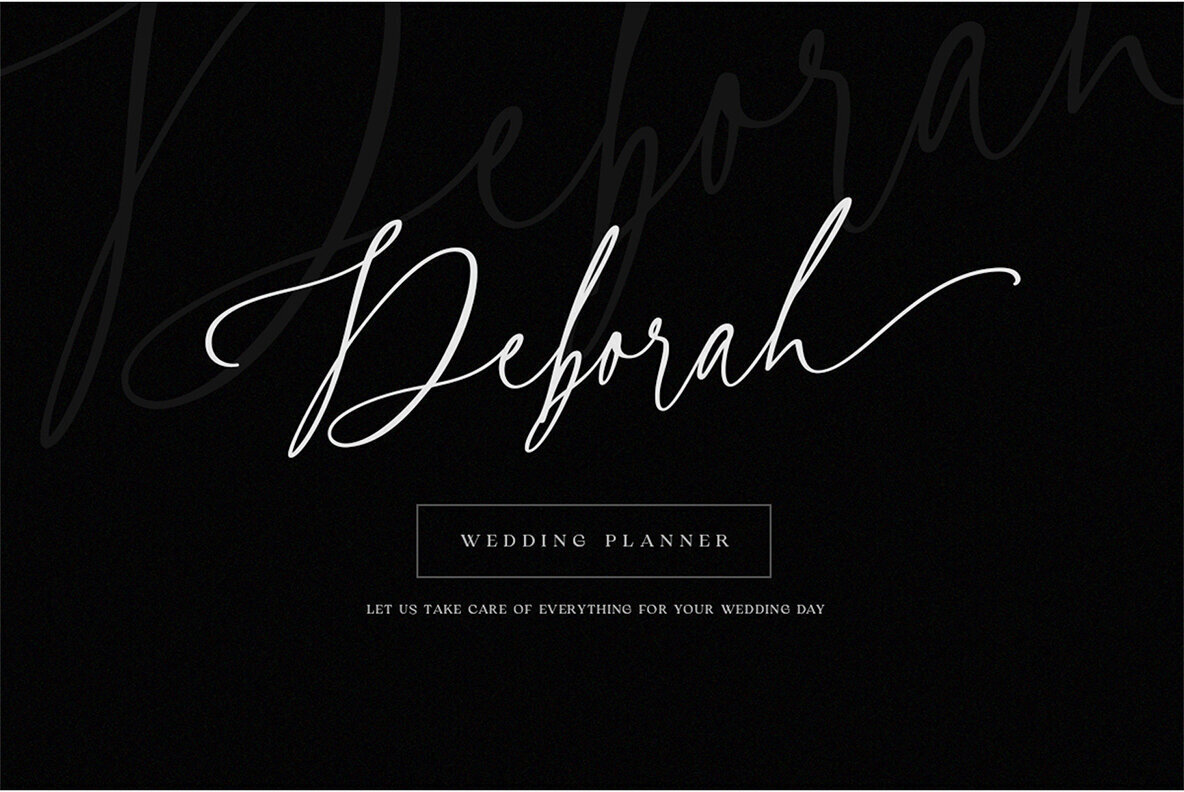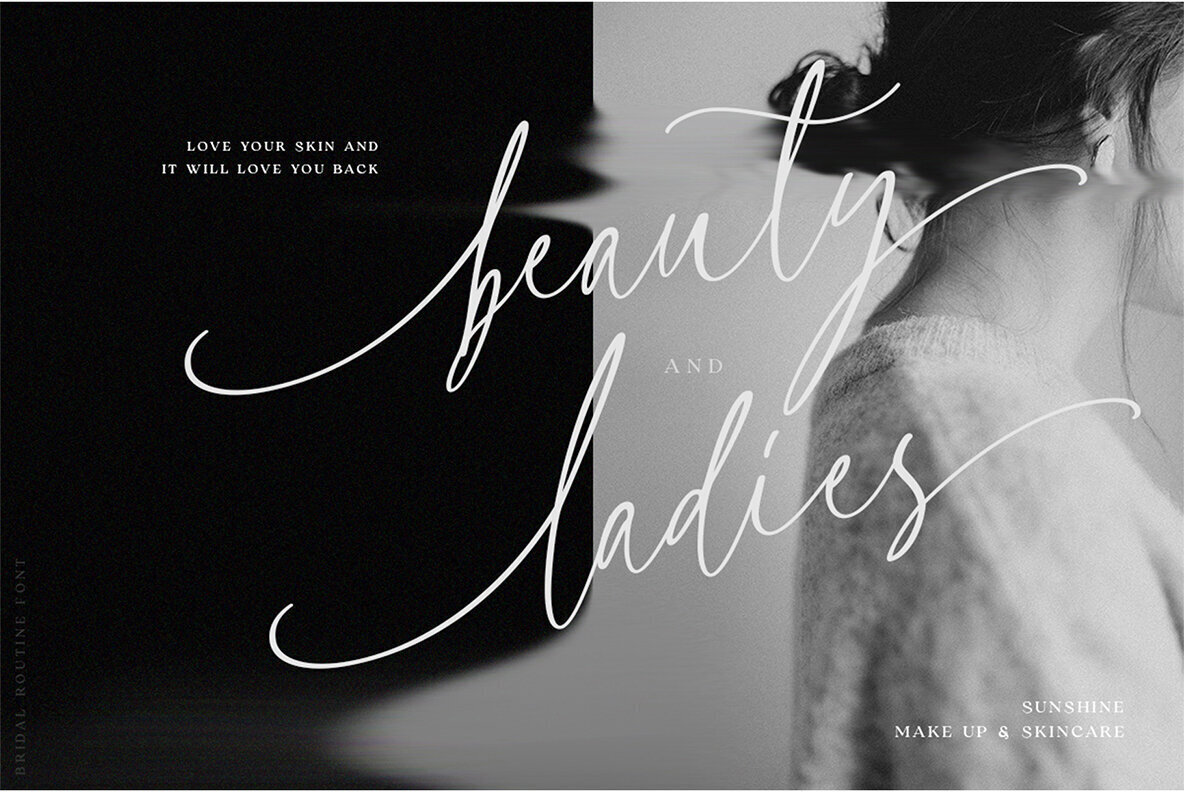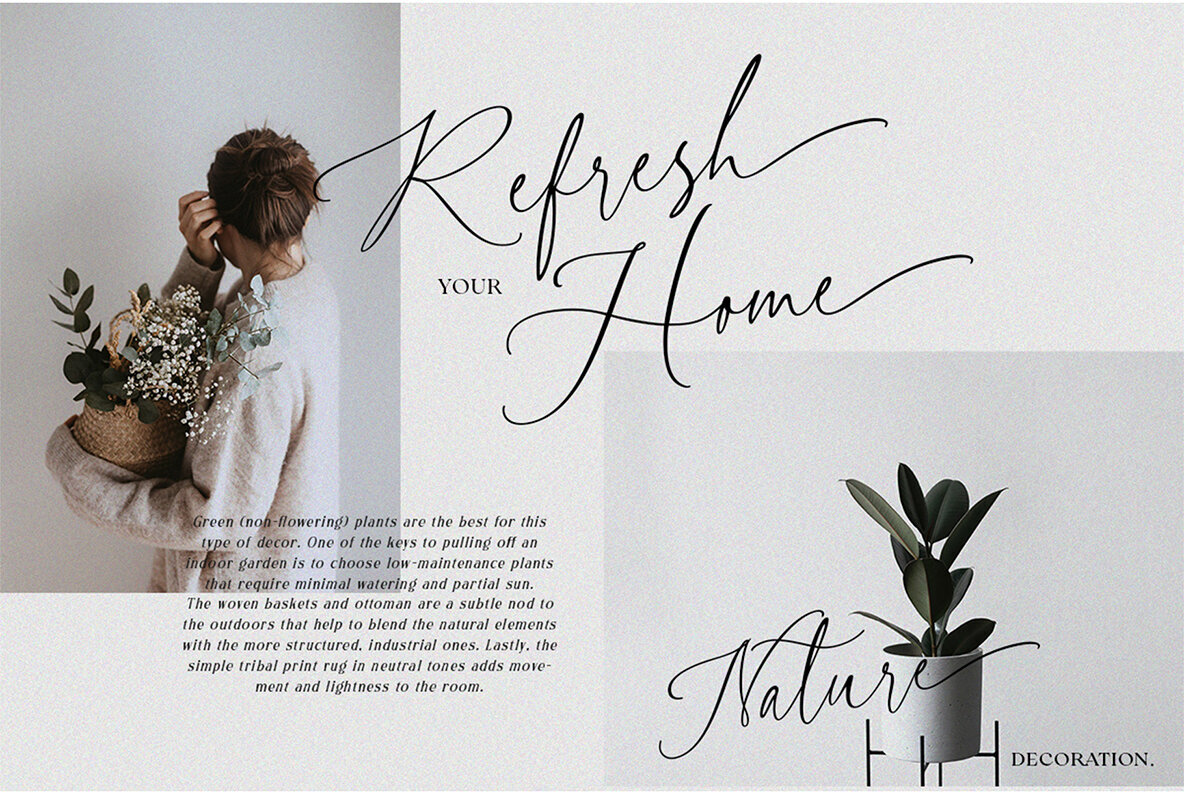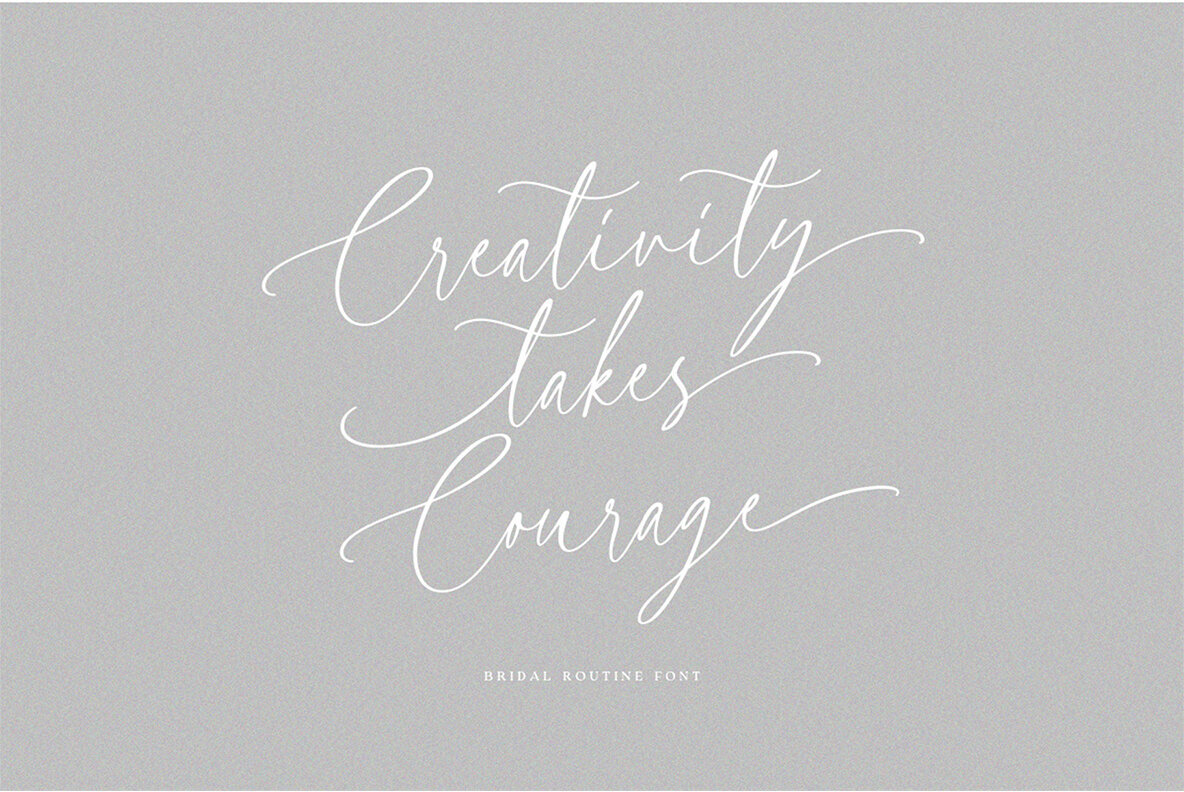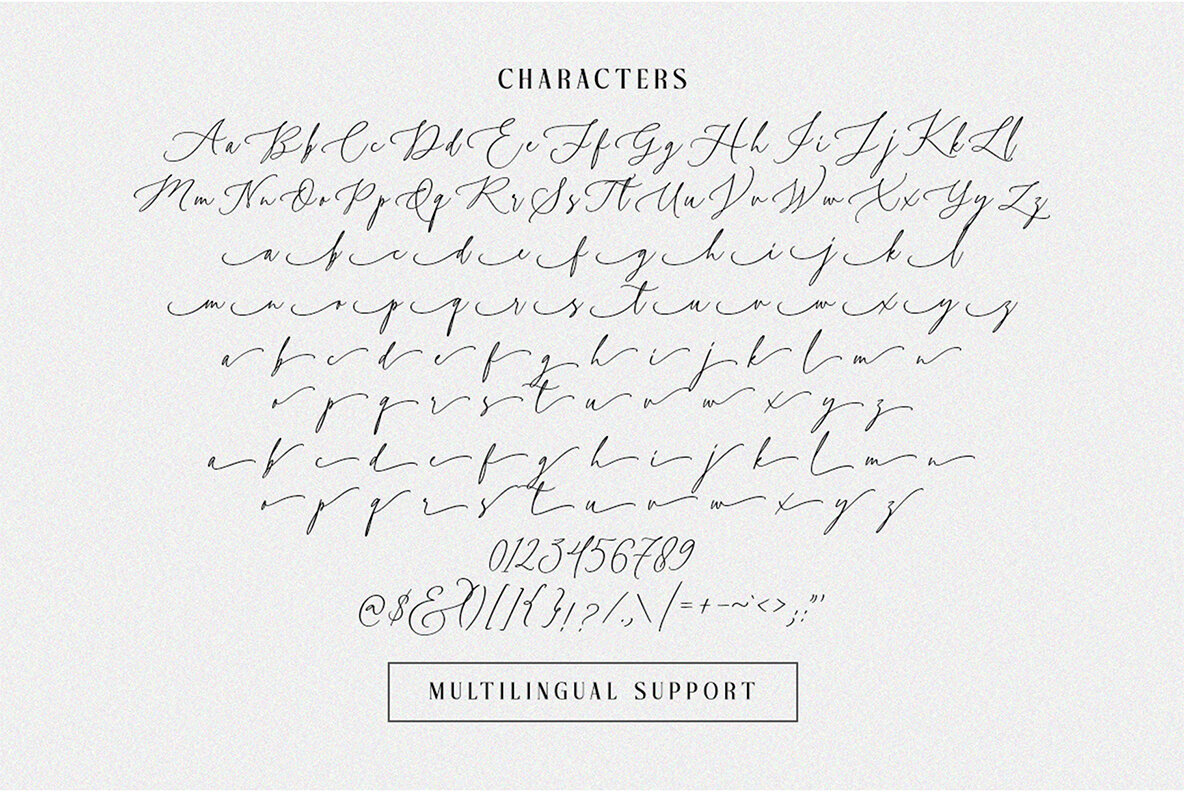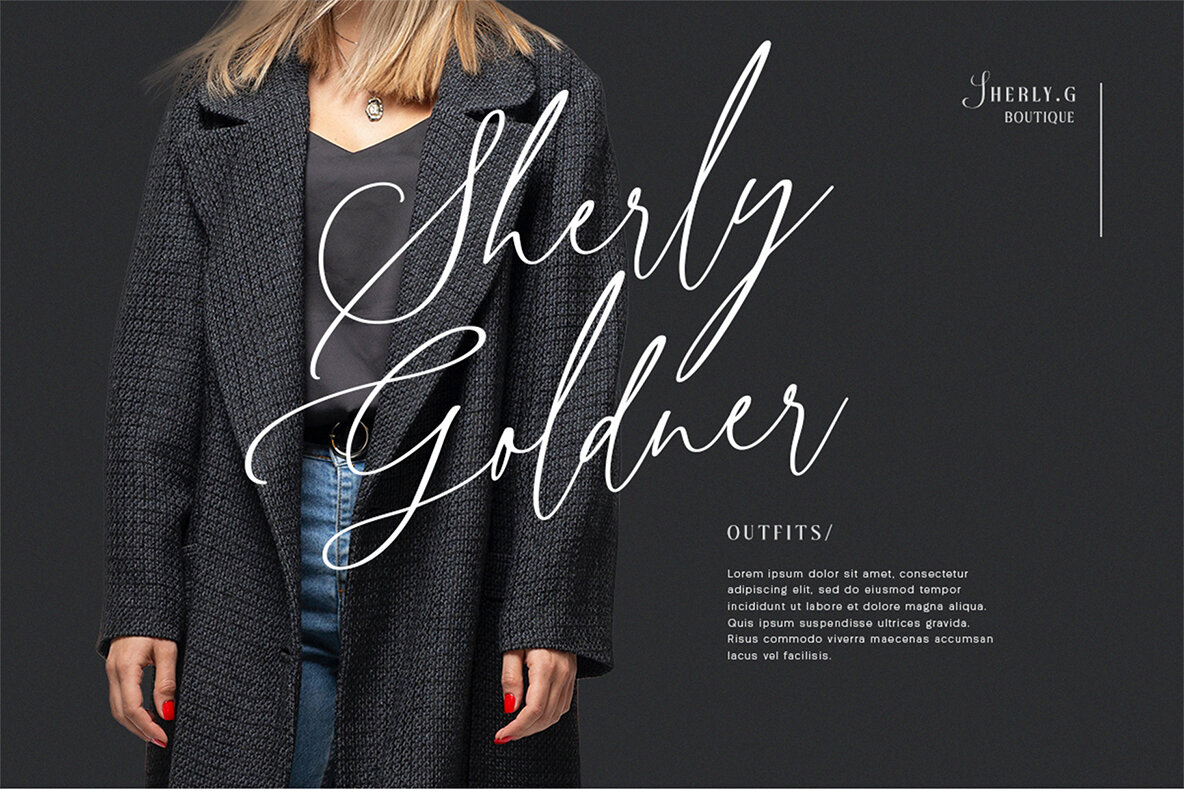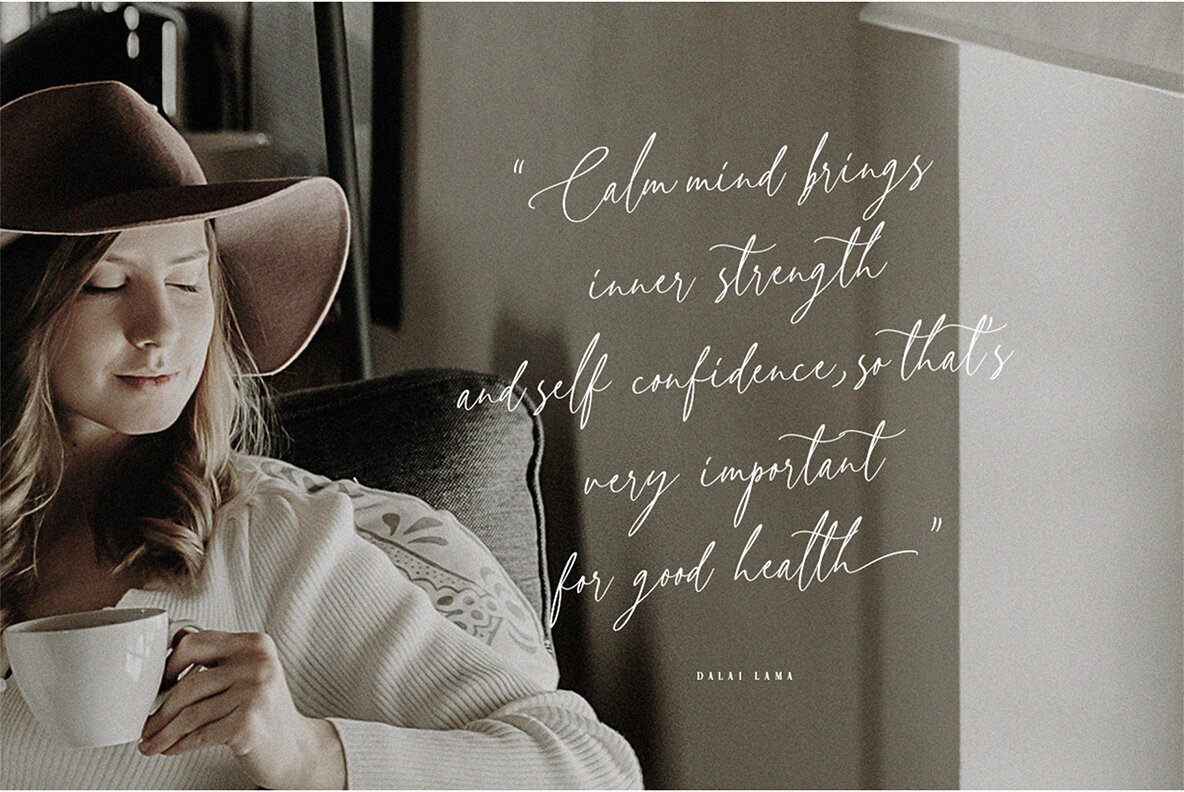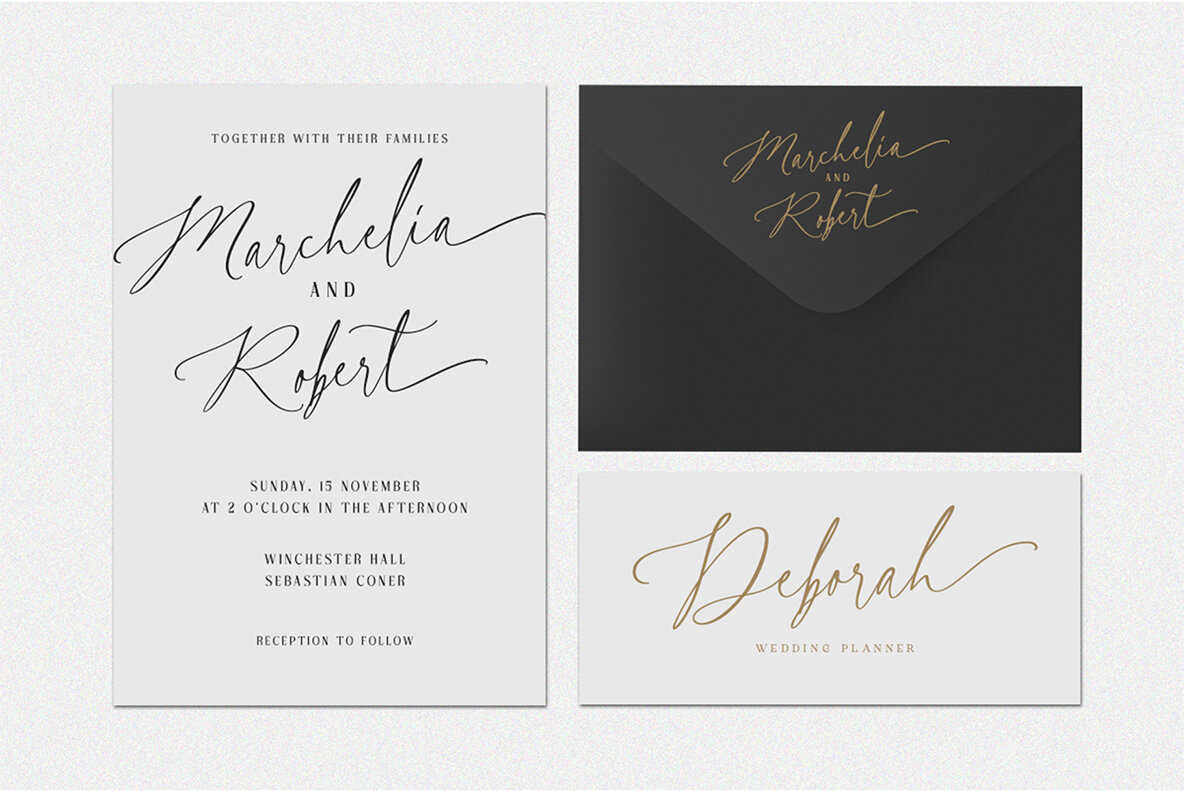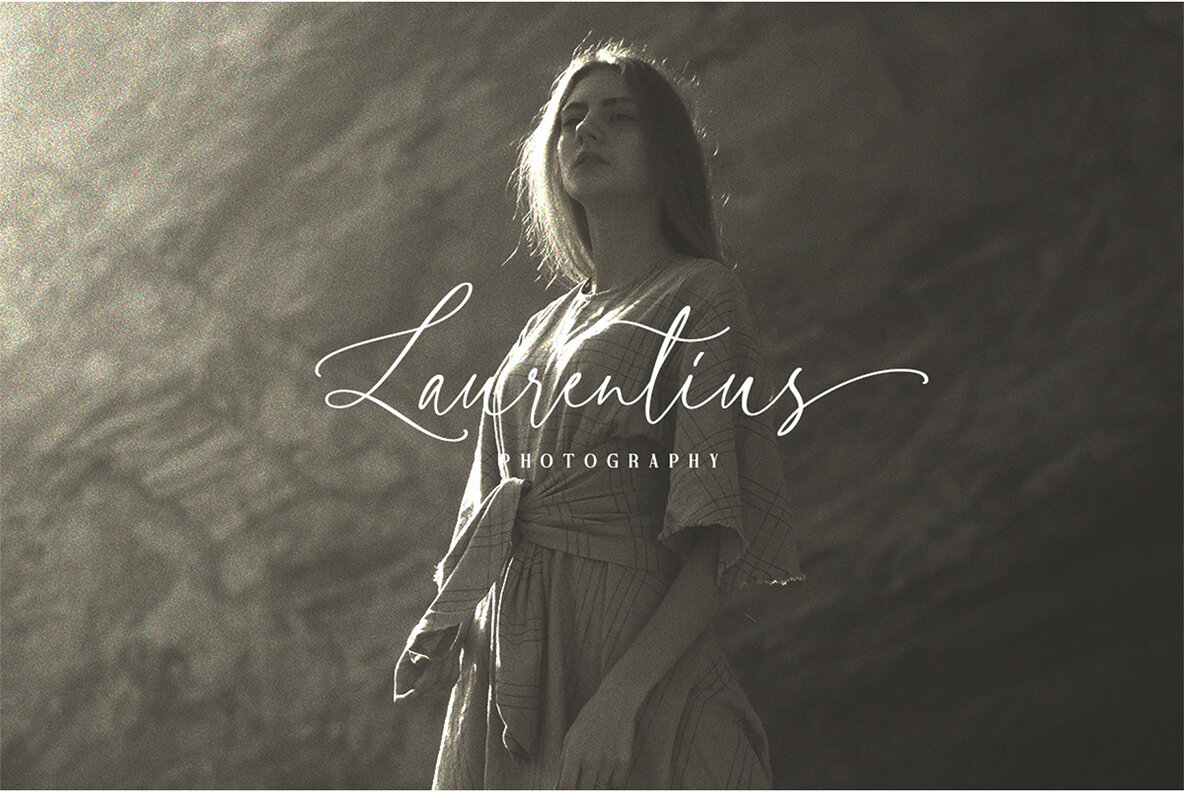
Bridal Routine Font
Bridal Routine by Letterhend Studio is a script font that fuses the grace of hand-drawn calligraphy with contemporary design elements. Its unique blend of thick and thin strokes, along with stylistic alternates and ligatures, brings an authentic handwritten appearance to your projects. This font is ideal for various formal applications, particularly logos, invitations, labels, and greeting cards. Its versatility extends to magazines, books, and any creative or advertising purpose where a touch of romantic sophistication is desired. Features:Bridal Routine: Elegant Signature Script
Perfect Applications